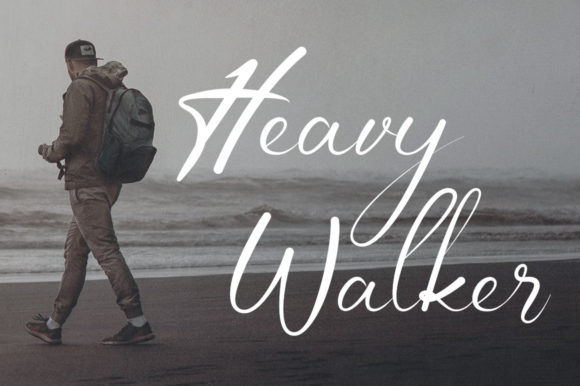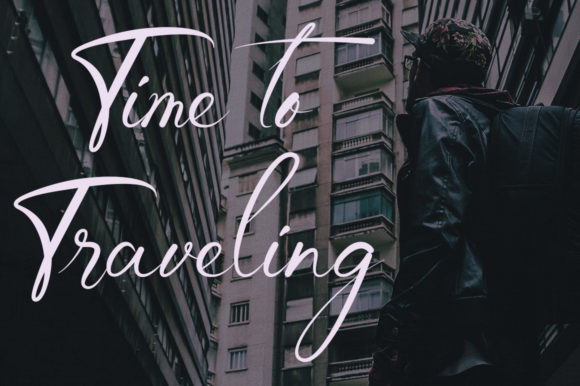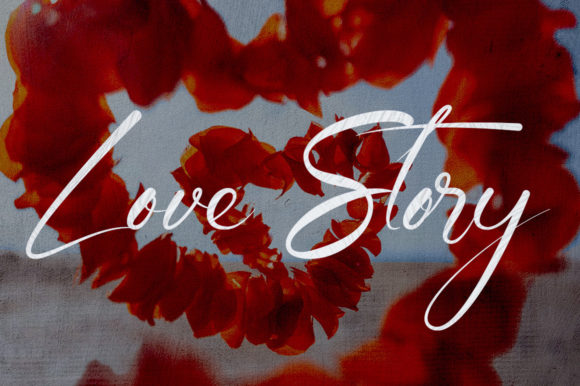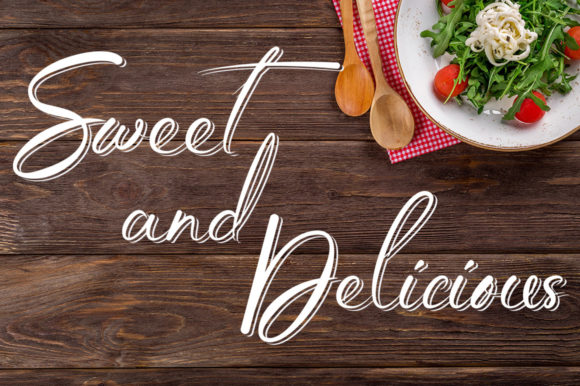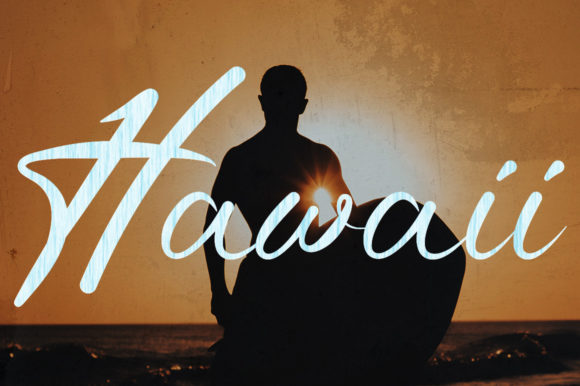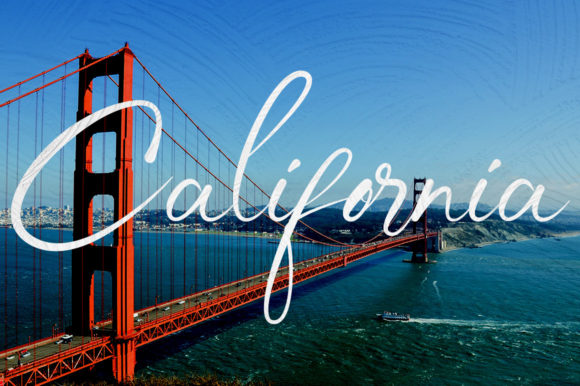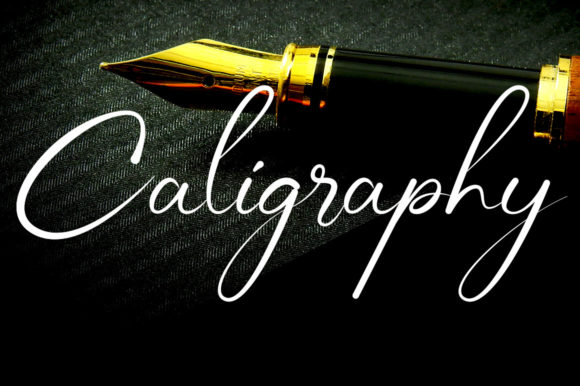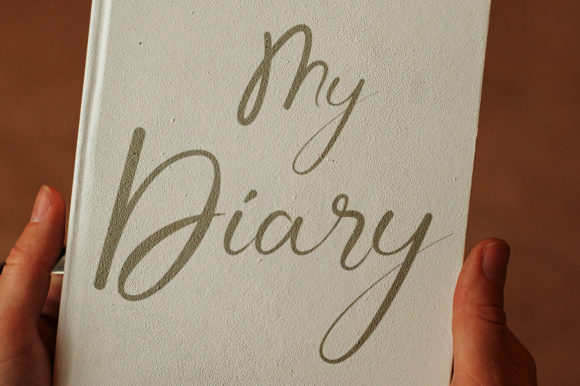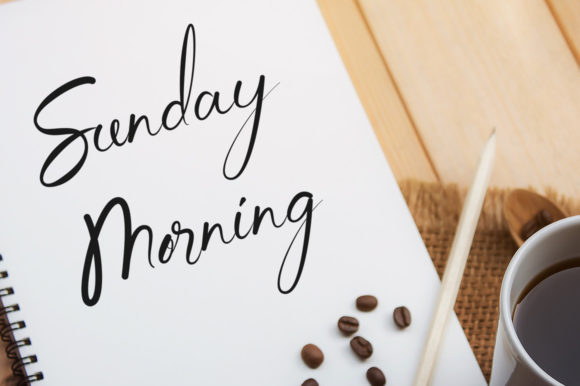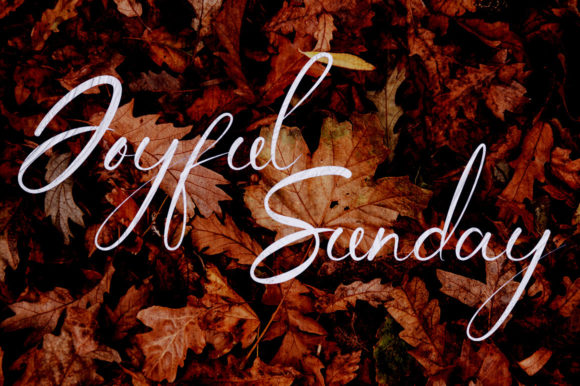
Jocelyn Sadnight Font
About Jocelyn Sadnight Font
Jocelyn Sadnight is a delicate and flowing script font. It was created for a packaging product, invitation card, flyer, event poster, and aspects that require high-quality touches. This font is PUA encoded which means you can access all of the glyphs and swashes with ease!